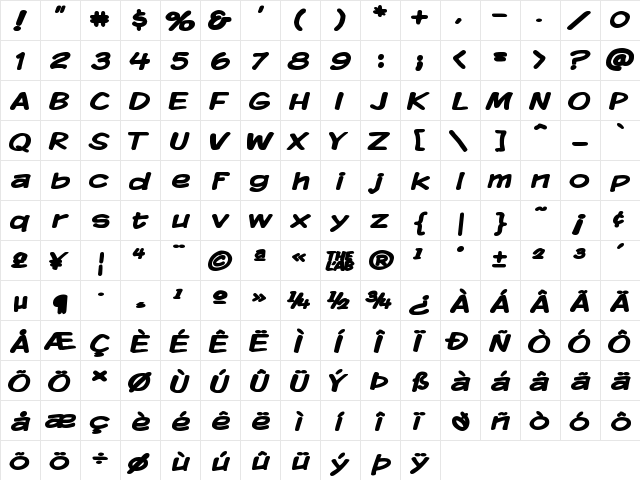
Komika Display Wide Bold
Design Context for Komika Display Wide Typeface
Komika Display Wide is built around its visual character rather than neutral utility — its distinctive forms are designed to make an impression at display sizes. The heavy weight commands attention and anchors typographic hierarchies.
Font Pairing: Pair with a clean neutral sans-serif for body copy to let Komika Display Wide's character lead without overwhelming the composition.
Pro Tip: Use Komika Display Wide exclusively at display sizes — it was designed to be seen, not read at length. Let a neutral companion handle body copy.